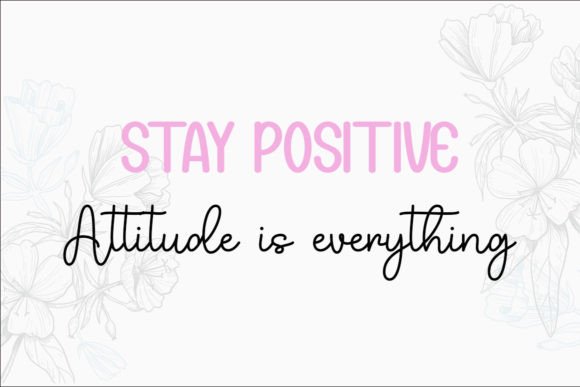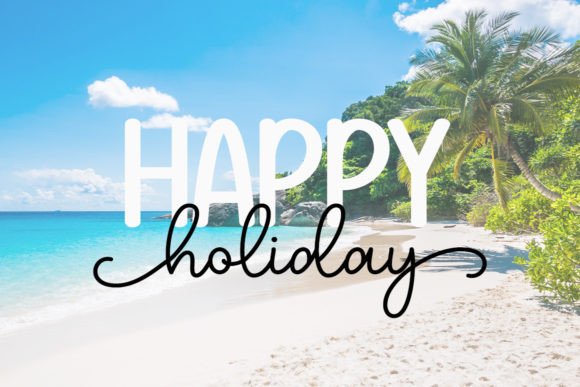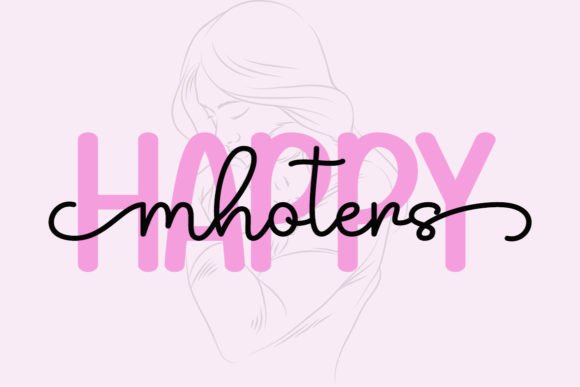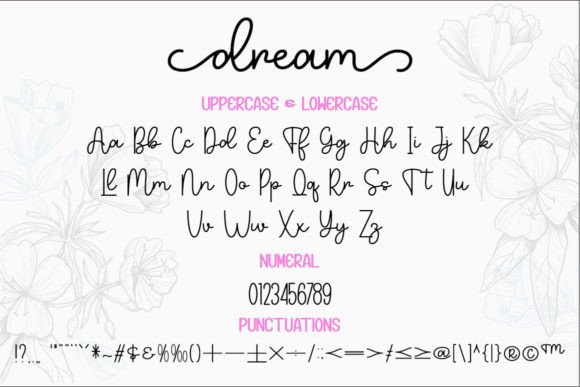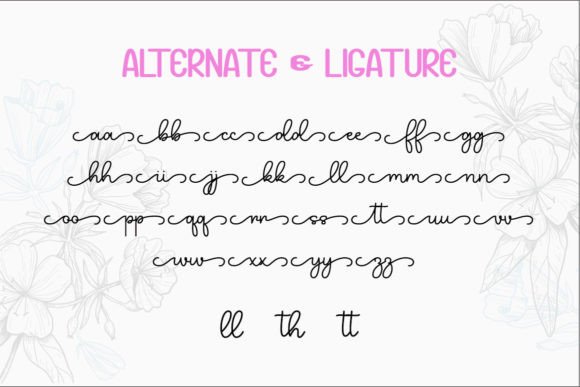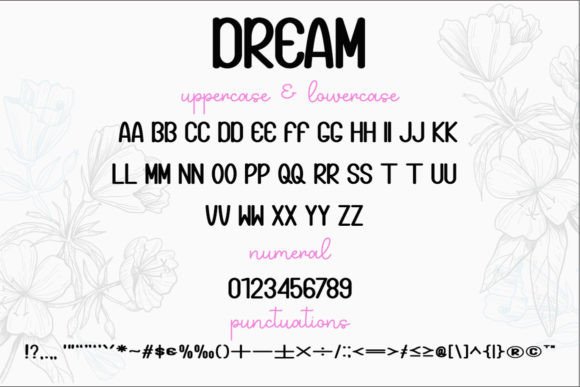
Dream Duo Font: Elevate Your Designs with a Lovely Handwritten Style
Are you on the hunt for a font that can add a touch of elegance and sophistication to your designs? Look no further than the Dream Duo Font, a beautiful handwritten font duo that is sure to inspire. With its well-rounded characters and stylish vibe, this font is perfect for designers and crafters who want to create stunning visual content.
What Makes Dream Duo Font So Special?
Dream Duo Font is a lovely handwritten font duo that features a light and approachable style. Its well-rounded characters give it a friendly and inviting feel, making it perfect for a wide range of design projects. Whether you’re creating a logo, a social media graphic, or a website, this font is sure to make your content stand out.
One of the things that sets Dream Duo Font apart is its PUA encoding. This means that you can access all of the glyphs and swashes with ease, giving you even more creative freedom to experiment with different styles and effects. With PUA encoding, you can easily insert special characters and flourishes into your text, taking your designs to the next level.
Key Features of Dream Duo Font
- Handwritten style: Dream Duo Font has a beautiful, handwritten style that is both elegant and approachable.
- Well-rounded characters: The font features well-rounded characters that give it a friendly and inviting feel.
- PUA encoded: With PUA encoding, you can access all of the glyphs and swashes with ease, giving you more creative freedom.
- Light and stylish vibe: The font has a light and stylish vibe that is perfect for a wide range of design projects.
Why Designers and Crafters Love Dream Duo Font
Dream Duo Font is a favorite among designers and crafters for many reasons. Here are just a few:
- Easy to read: The font is easy to read, even at small sizes, making it perfect for body text and captions.
- Versatile: Dream Duo Font is versatile and can be used for a wide range of design projects, from logos and branding to social media graphics and websites.
- Customizable: With PUA encoding, you can easily customize the font to fit your design style, adding special characters and flourishes as needed.
- Beautiful: Let’s face it – Dream Duo Font is just plain beautiful! Its elegant, handwritten style is sure to add a touch of sophistication to any design.
How to Use Dream Duo Font in Your Designs
Using Dream Duo Font in your designs is easy. Here are a few tips to get you started:
- Pair it with other fonts: Dream Duo Font pairs well with other fonts, so don’t be afraid to experiment with different combinations.
- Use it for headings and titles: The font’s elegant style makes it perfect for headings and titles, adding a touch of sophistication to your designs.
- Add special characters and flourishes: With PUA encoding, you can easily add special characters and flourishes to your text, taking your designs to the next level.
- Experiment with different colors and textures: Dream Duo Font looks great in a variety of colors and textures, so don’t be afraid to experiment and find the perfect combination for your design.